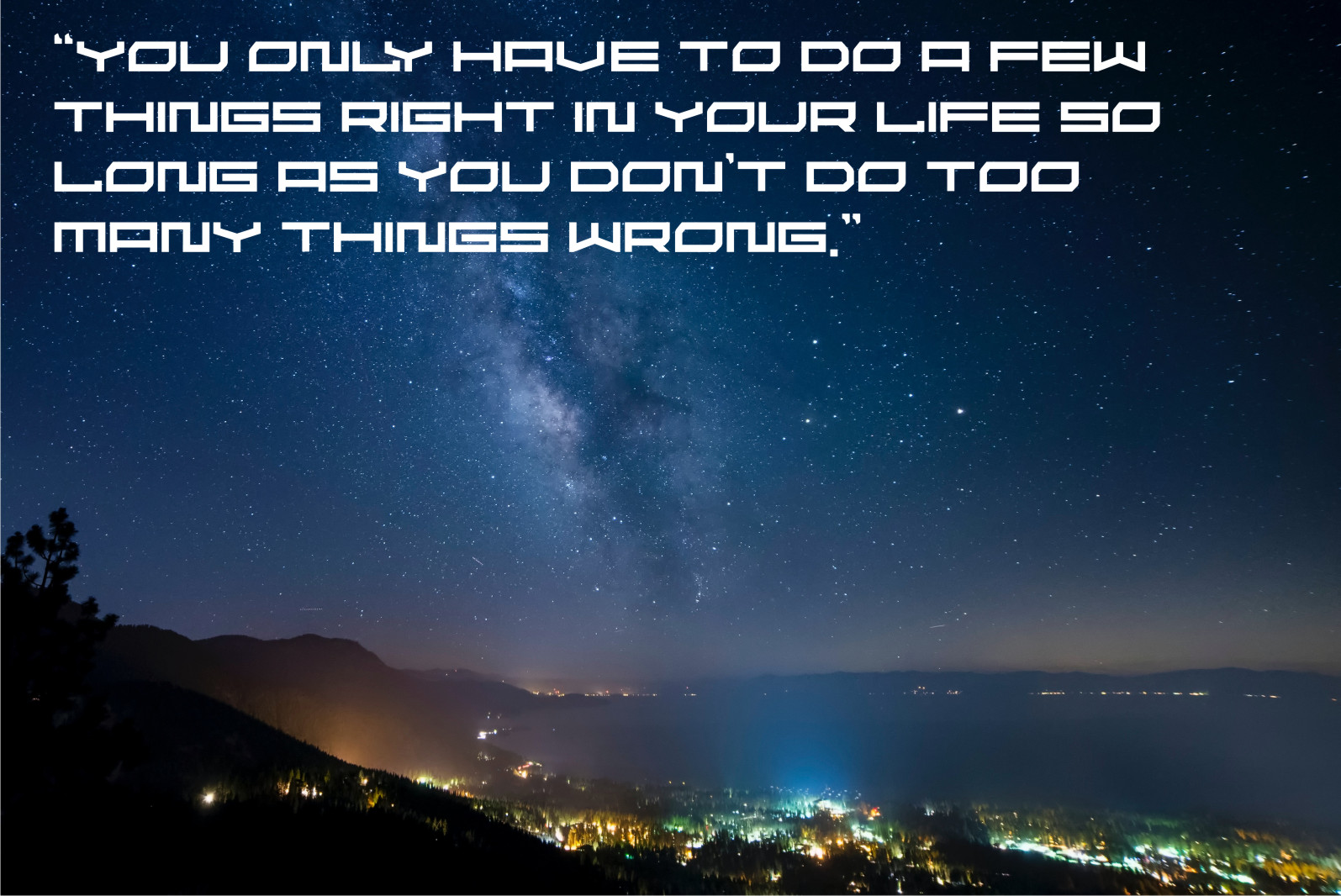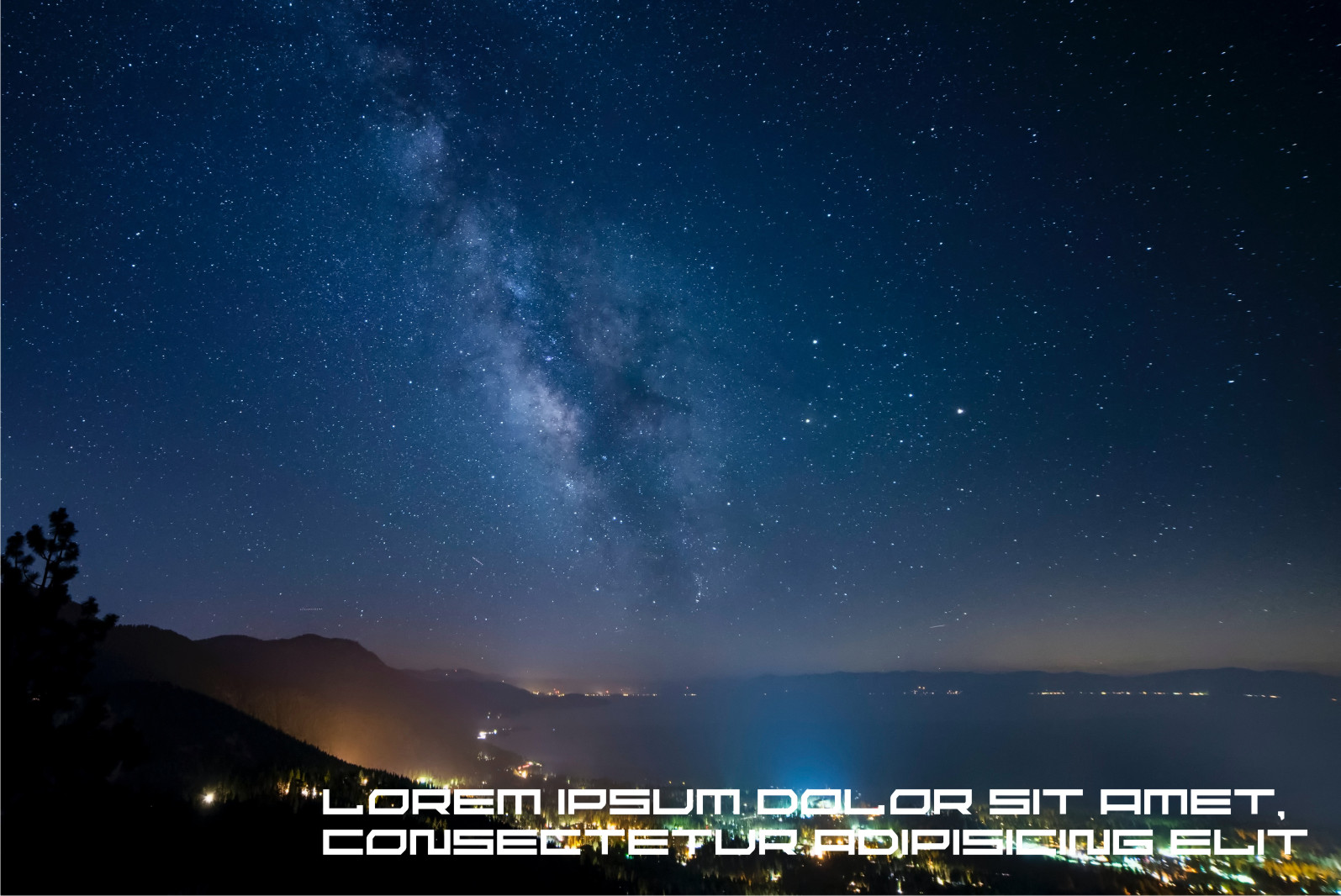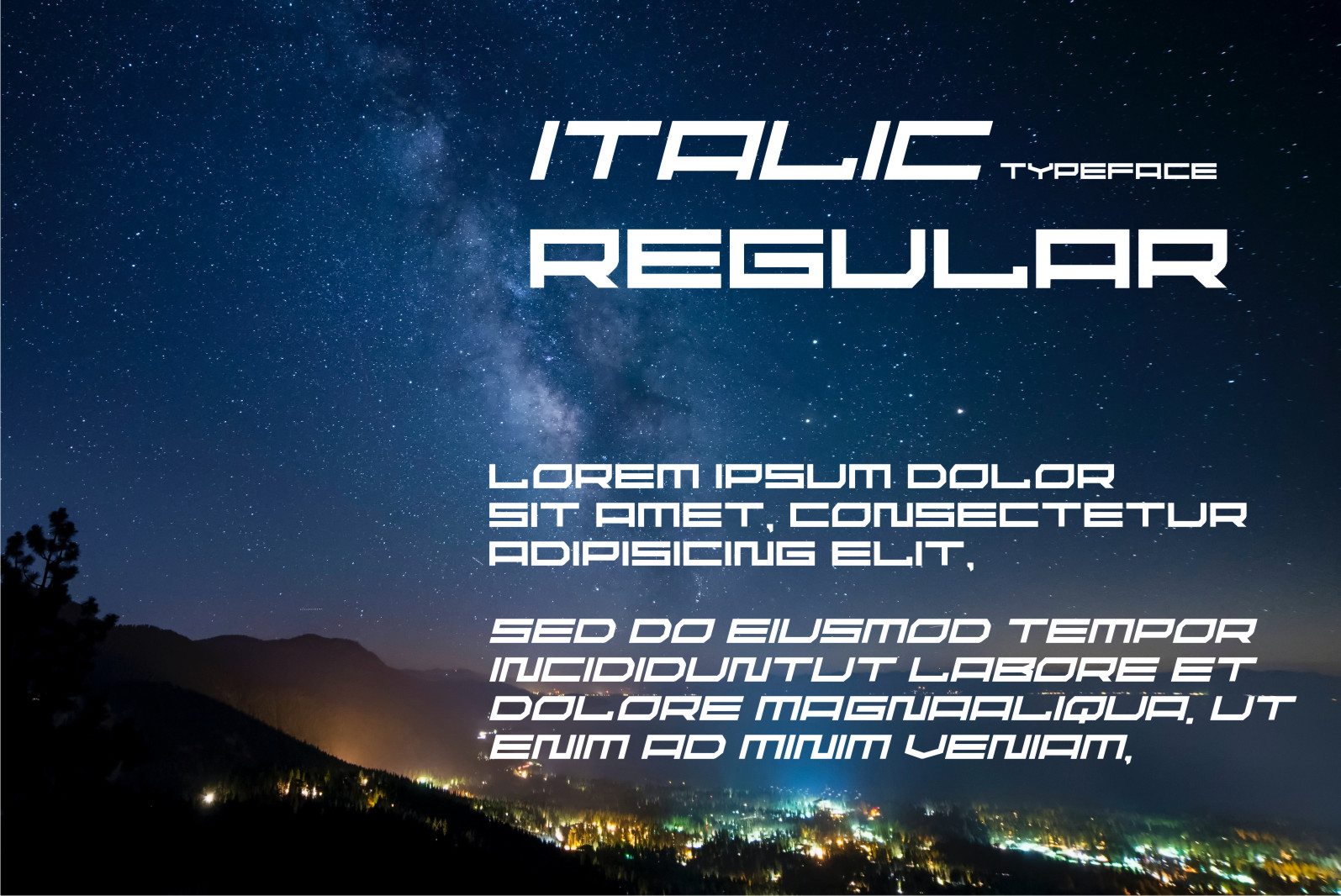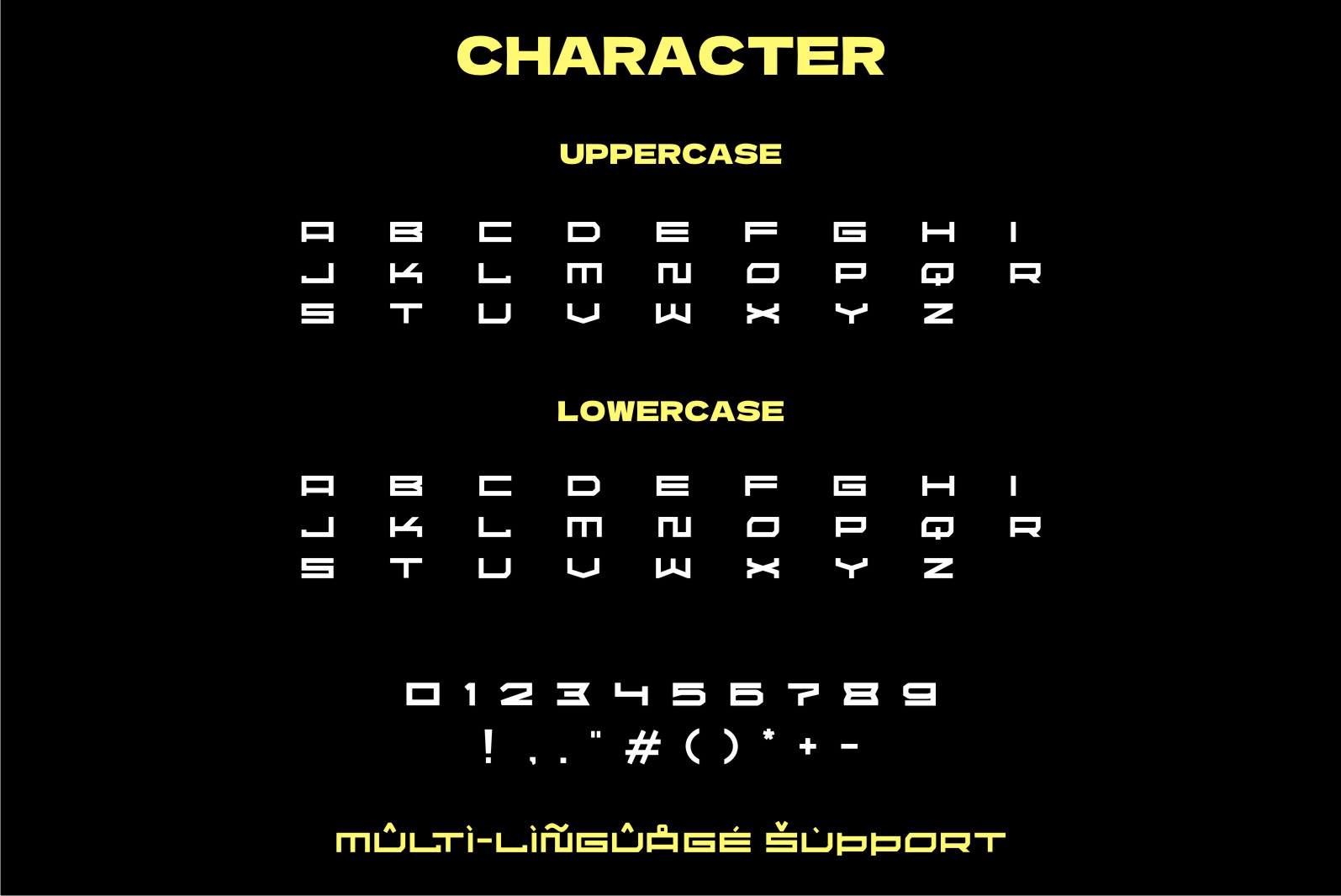
Aferd Font
Aferd Font is a cool and robotic-styled display font. This font is ideal for writing web designs, business cards, or pretty much anything else that requires a futuristic touch.